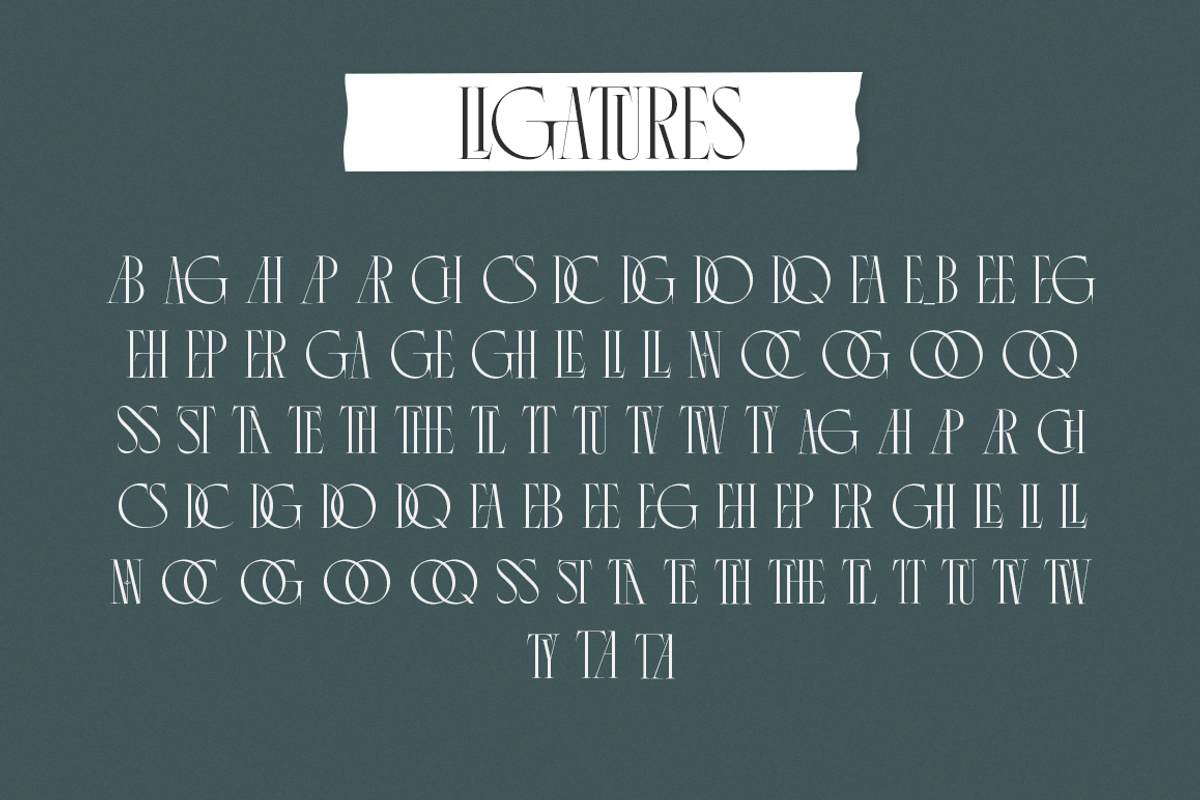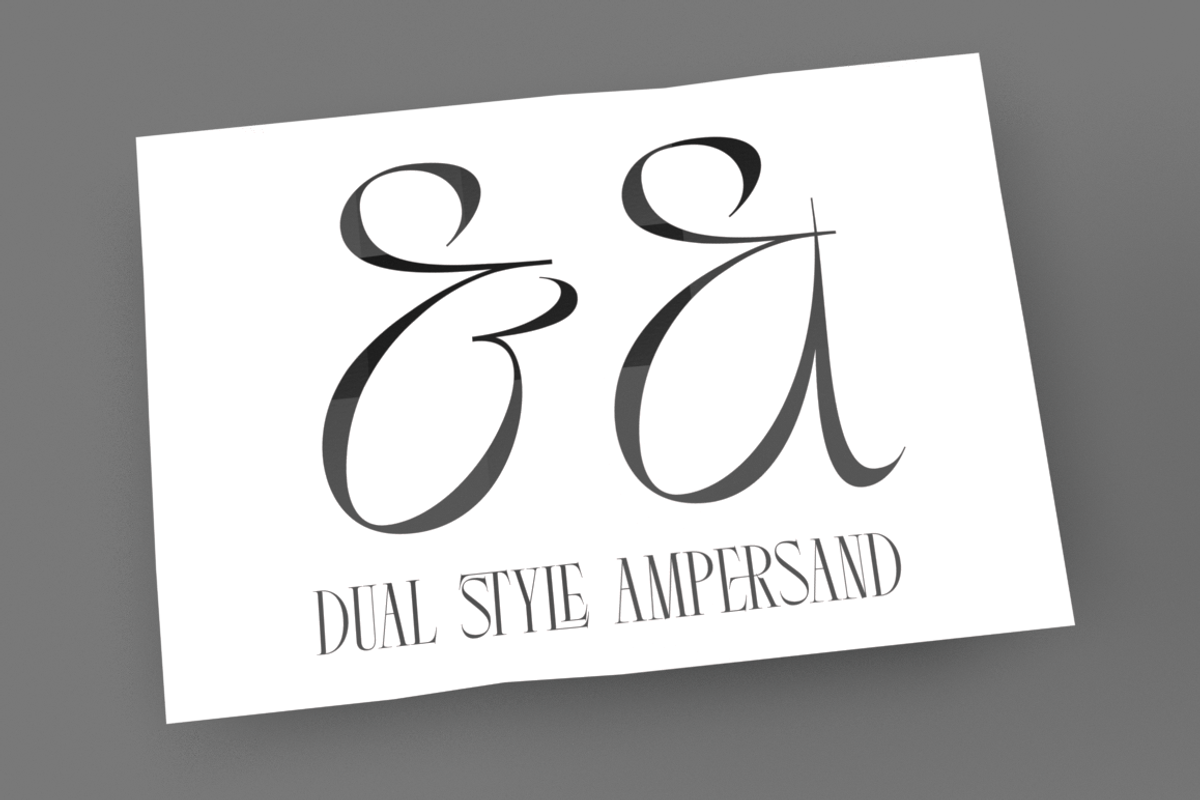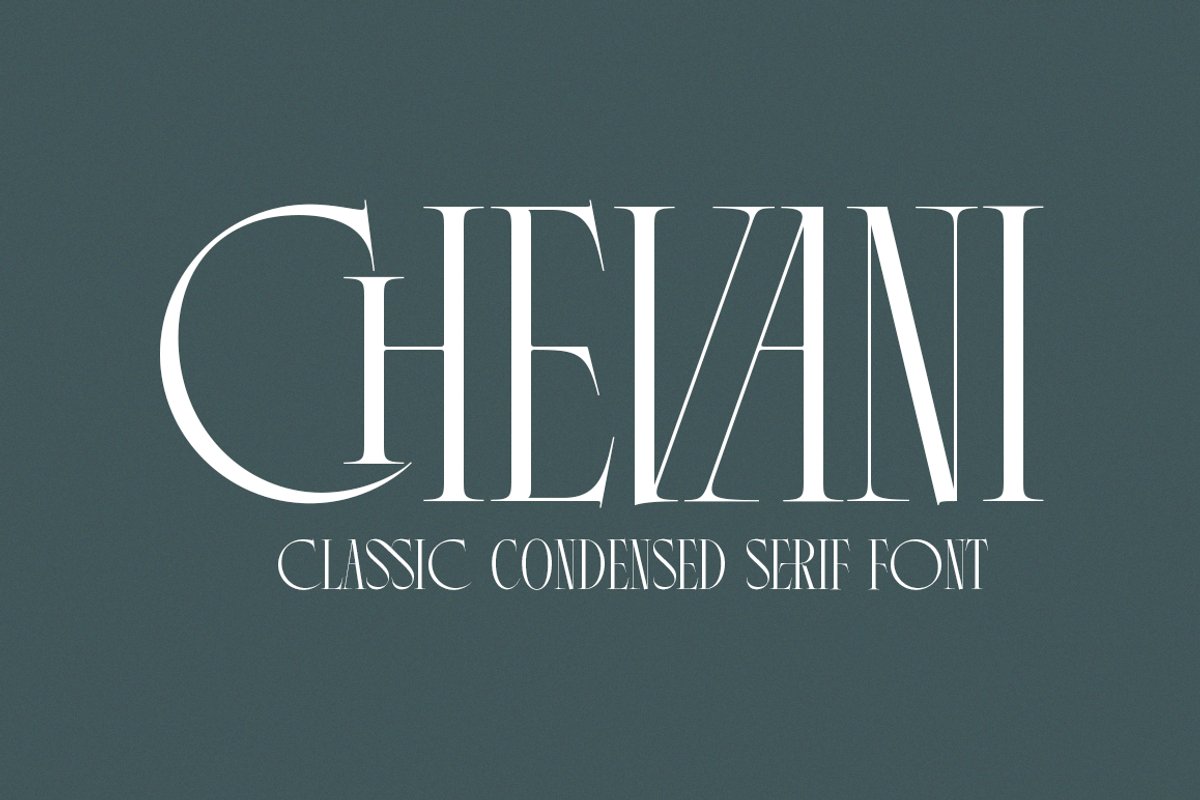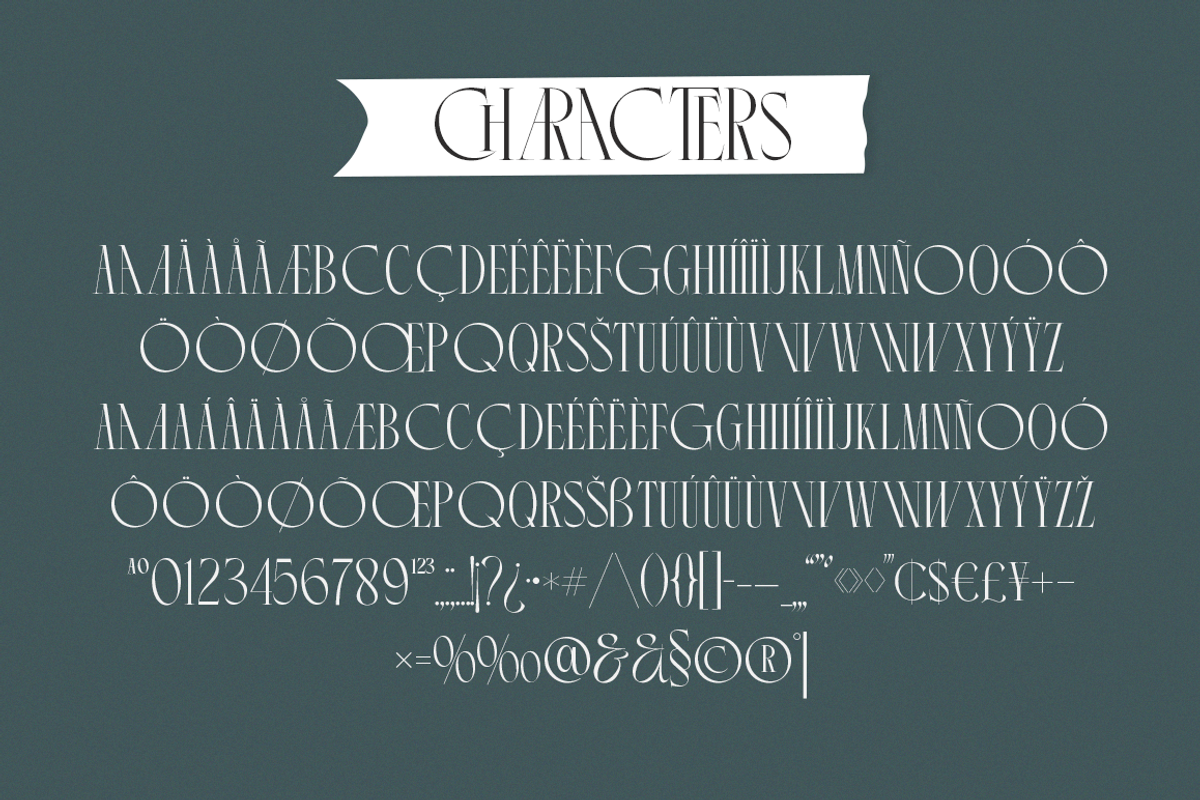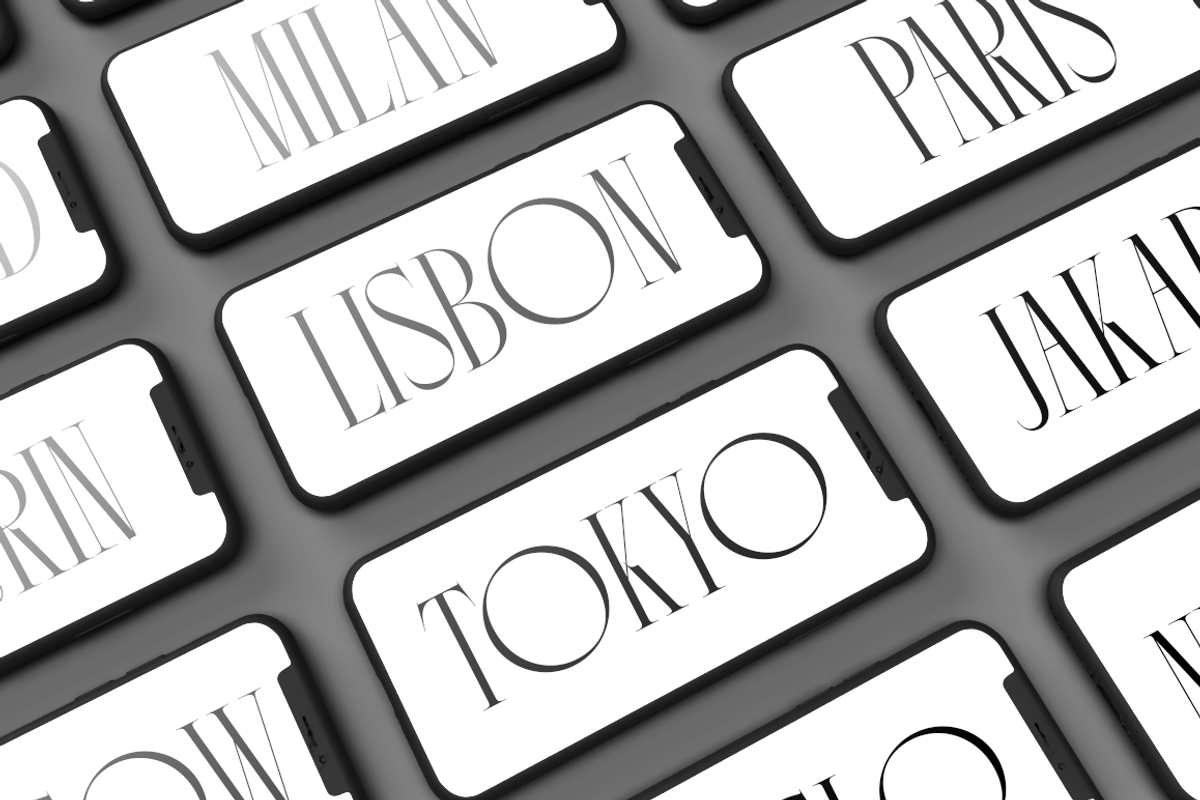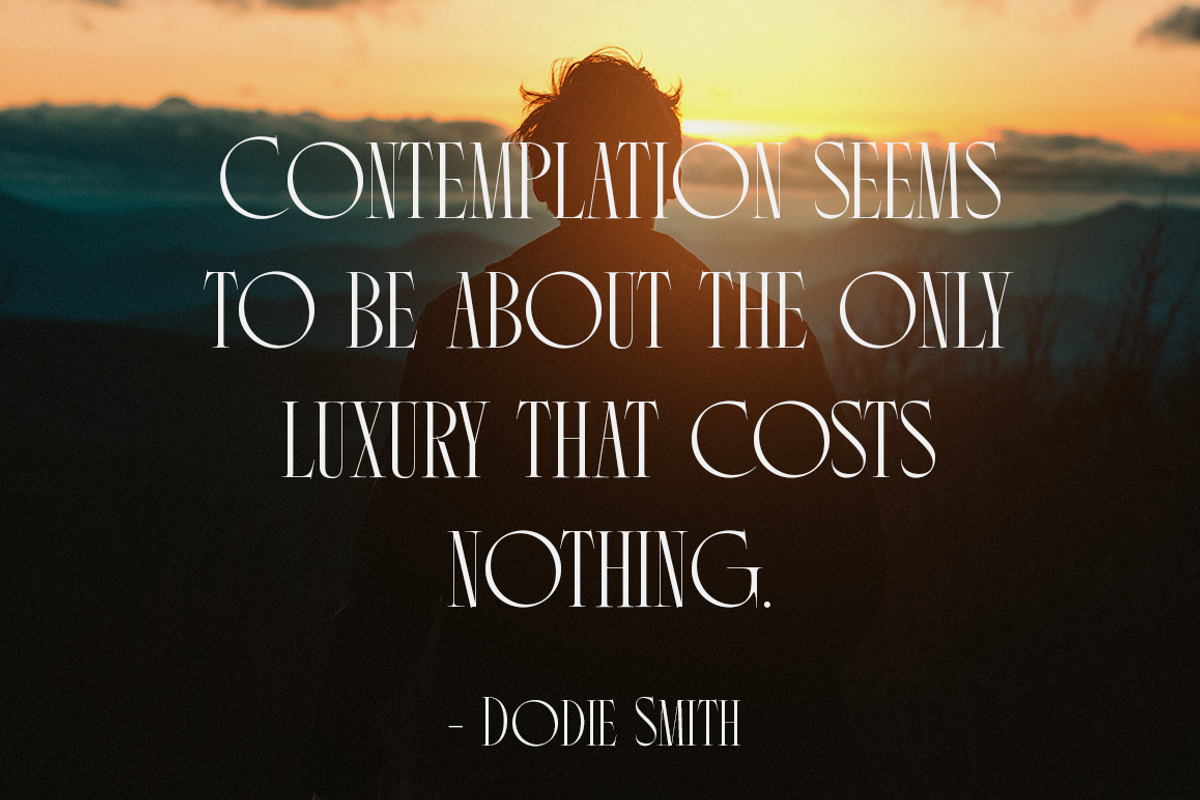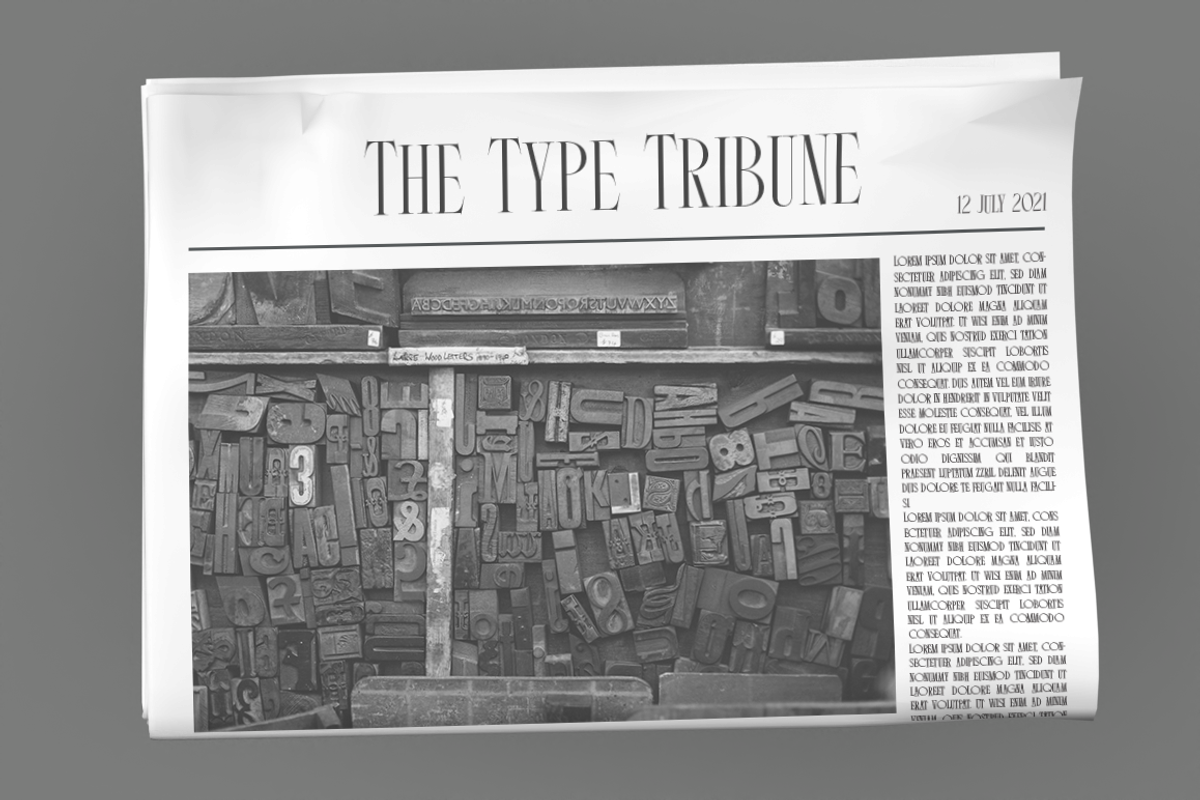
Chevani - Classic Condensed Serif
Chevani is a unique all-caps condensed serif font with a number of great features.
This font includes a variety of alternate characters that are significantly wider than standard characters in order to create dramatic headlines & titles.
Chevani also features a nice selection of custom ligatures which makes it even more versatile!